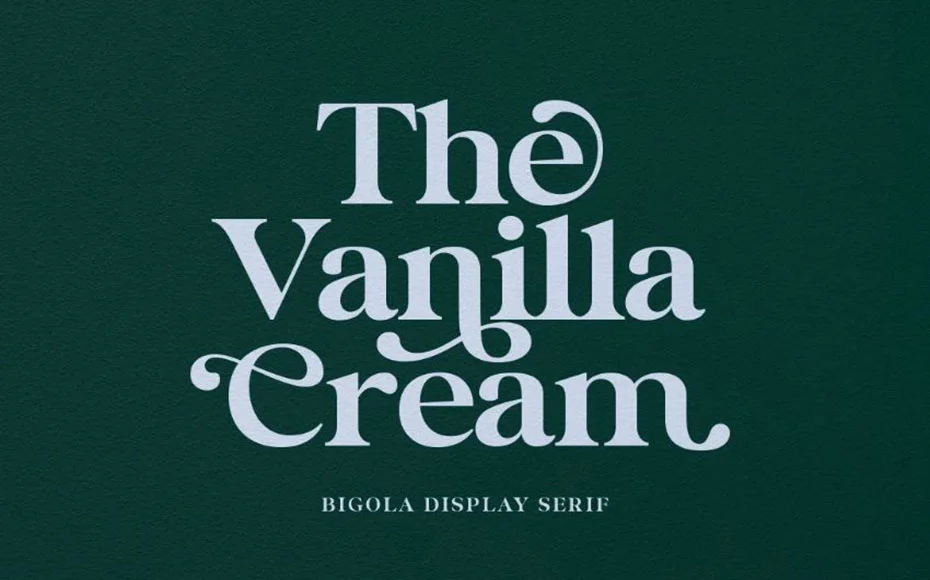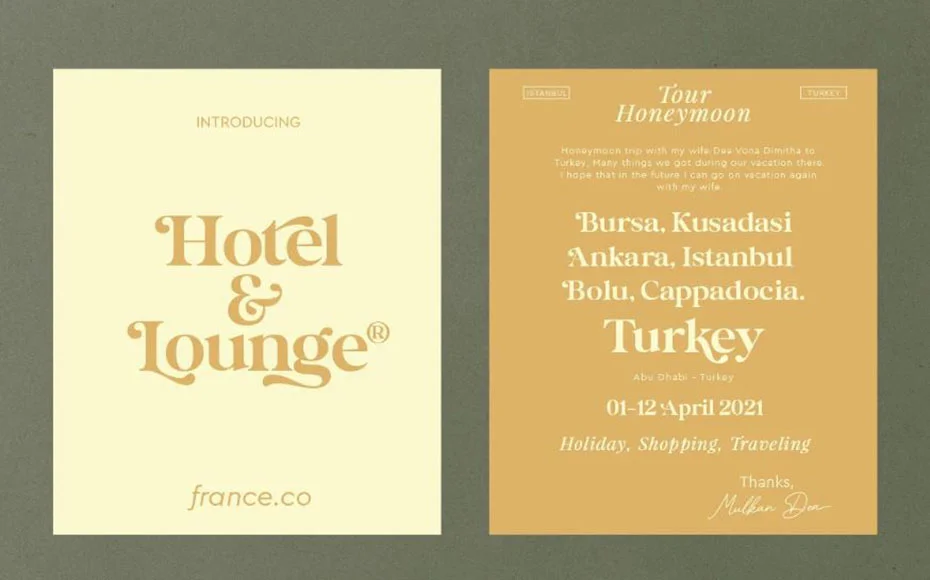
Bigola Display Regular Font is a modern vintage serif typeface packaged in a modern and classy style. It is a versatile font that can be used for a variety of purposes, including branding, logo design, clothing branding, packaging, magazine headings, advertising, T-shirts, postcards, and more.
The font has a strong personality that is both elegant and playful. The letters are well-proportioned and have a slight slant, which gives them a sense of movement. The serifs are delicate and understated, which helps to keep the font from looking too heavy.
It is a great choice for projects that need a touch of sophistication and style. It is a versatile font that can be used in a variety of ways, so you are sure to find a use for it in your next design project.
Bigola Display Regular can be used to brand clothing and accessories. The font’s bold letters and vintage style can help to create a unique and stylish look for any clothing line.
Style:Modern, Serif, Vintage
Bigola Display Regular can be used in advertising. The font’s bold letters and vintage style can help to create an eye-catching and memorable ad.
You can use this font for various types of attractive name designs, autograph designs, postcard designs, and ebook cover designs. This font is suitable for different advanced projects due to its unique and impressive look. The attractive look of this font is suitable for making template design purposes.